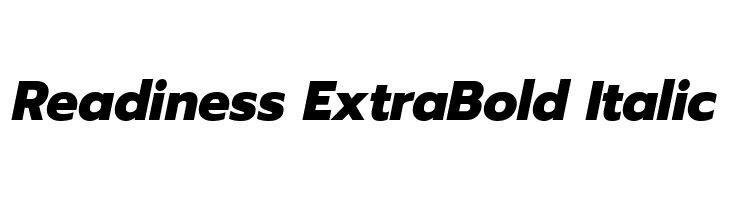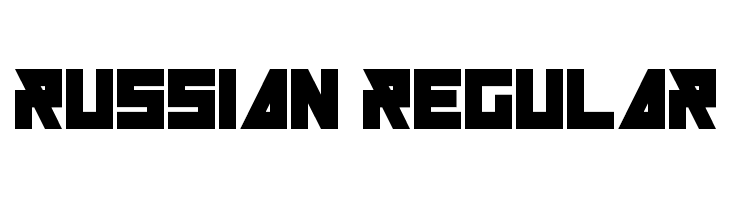
A bold, cursive script font with a lively, handwritten style.
An elegant italic font with smooth, flowing lines and moderate contrast.
A playful, bold font with rounded edges and a hand-drawn style.
A bold, pixelated font with a retro digital style.
A decorative Blackletter font with ornate, gothic-inspired design.
A bold, playful script font with a handwritten feel.
A bold, angular font with a geometric and tribal aesthetic.
A modern, light, and italic font with sleek geometric shapes.
A bold, italicized font with a modern and dynamic appearance.
A whimsical script font with elegant, flowing letterforms and playful flourishes.
A playful font with letters embedded in construction vehicles.
A bold, geometric sans-serif font with a modern and structured design.
A bold, distressed font with a vintage, textured appearance.
A tall, narrow font with Art Deco influences and geometric flair.
A flowing cursive font with elegant, connected letters and moderate stroke contrast.
A bold, angular font with a futuristic and geometric design.
A playful and whimsical script font with flowing, interconnected letters.
An elegant, cursive font with flowing, sophisticated characters.
A bold, 3D italic font with a futuristic and angular design.
A bold, modern font with a blurred effect and rounded characters.
A playful, handwritten-style font with flowing, cursive-like strokes.
A dynamic and expressive handwritten font with fluid, sweeping strokes.
An elegant and flowing script font with ornate letterforms and graceful curves.
An elegant, flowing script font with interconnected letterforms and artistic flair.
A bold, artistic font with a hand-drawn, playful style.
A bold, hand-drawn font with a playful and artistic style.
A semi-condensed serif font with moderate contrast and classic elegance.
A bold, slanted font with high contrast and dynamic energy.
A bold, playful handwritten font with fluid strokes and whimsical character designs.
A playful, flowing script font with smooth, continuous strokes.
A dynamic, expressive handwritten font with fluid strokes and a raw, artistic texture.
A modern geometric font with bold, angular shapes and clean lines.
A bold, brush-style font with dynamic, hand-painted strokes.
A bold, energetic script font with dynamic and flowing letterforms.
A whimsical, artistic font with flowing uppercase letters and straightforward lowercase letters.
设计师偏爱 Rastenburg U1SY, Andine Italic, Hey Comic, Solomon's Key True Type and Coelnische Current Fraktur,因为其造型干净、适用范围广—— 从品牌识别到落地页、海报都能胜任。